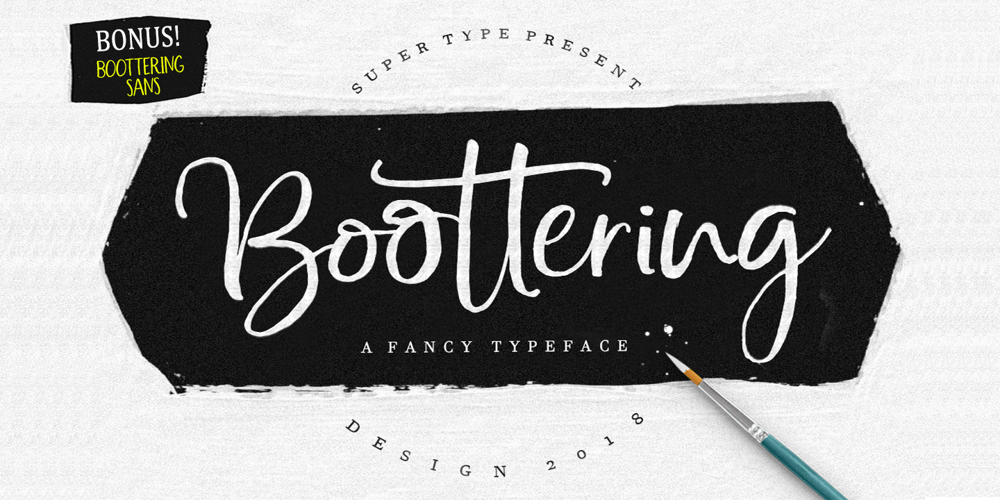
Boottering
Boottering font
Boottering Font Family was designed by Hafis Hidayat and published by HafisHidayat. Boottering contains 2 styles and family package options. Boottering is a modern handmade script, organic, energetic and dynamic, can be used for various purposes. such as the title, correspondence, wedding invitations, letterheads, signage, labels, signature newsletters, logos, posters, badges, etc.Boottering features 222 Glyphs, 40 alternate all lowercase characters, including ligatures, International support for most Western Languages is included, And for Boottering Sans do not have International Language support.